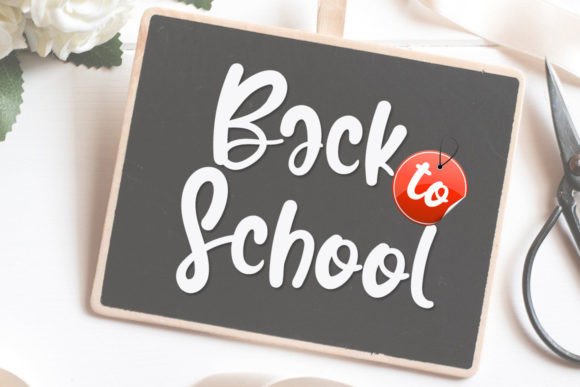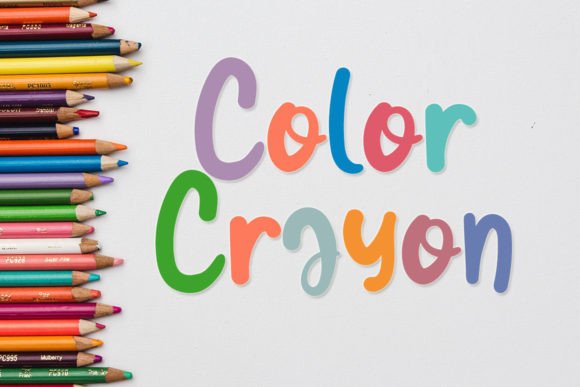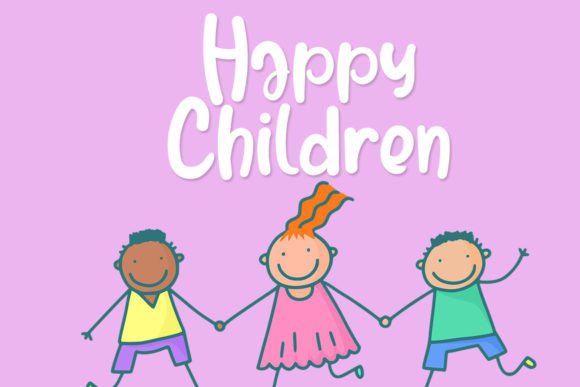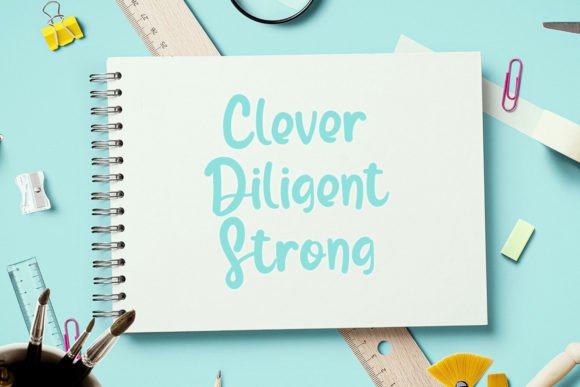
Back to School Font
Introducing Back to School, a beautiful and sweet handwritten font designed to bring a fresh, clean, and elegant aesthetic to a wide range of projects. This versatile font is crafted to look amazing in various contexts, both formal and informal, adding an incredibly joyful touch to your designs. Utilizing Back to School in your creative endeavors will not only enhance the visual appeal but also infuse beauty and charm, making your business or projects stand out.
What sets Back to School apart is its delightful combination of beauty and sweetness. The handwritten style imparts a sense of authenticity and warmth, making it a perfect choice for diverse applications. Imagine Back to School gracing formal documents, where it introduces an element of elegance with a personal and friendly twist. Envision it on informal projects, bringing forth a joyful and lighthearted energy that resonates positively with your audience.
The versatility of Back to School allows it to shine in various design contexts. Whether employed for business materials, invitations, or creative projects, this font adapts seamlessly, elevating the overall aesthetics. Its ability to bring a joyful touch makes it a font that enhances the visual appeal of your designs.
Visualize Back to School becoming an essential part of your design toolkit, contributing to the uniqueness and beauty of your projects. Envision it on various materials, where its clean and elegant design communicates professionalism and charm. The font’s versatility and joyful nature make it a valuable addition that adds a special and delightful touch to your creative endeavors.
In conclusion, Back to School is not just a font; it’s a beautiful and sweet design asset that brings joy, elegance, and beauty to your projects. Download it today and experience how it transforms your business materials, invitations, and more into expressions of charm and delight. Make Back to School a cherished addition to your font collection, and let it be the key to unlocking a world of creativity and joy in your designs!